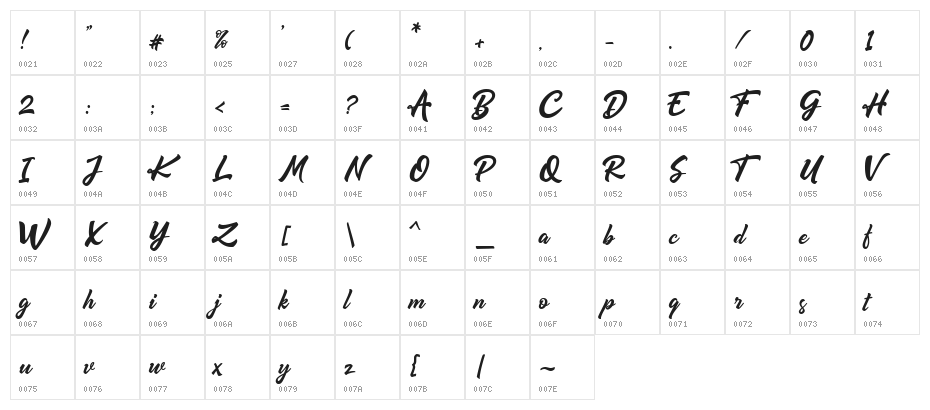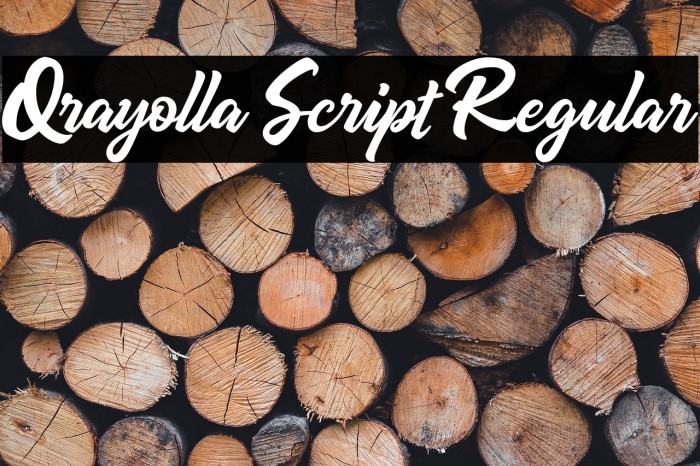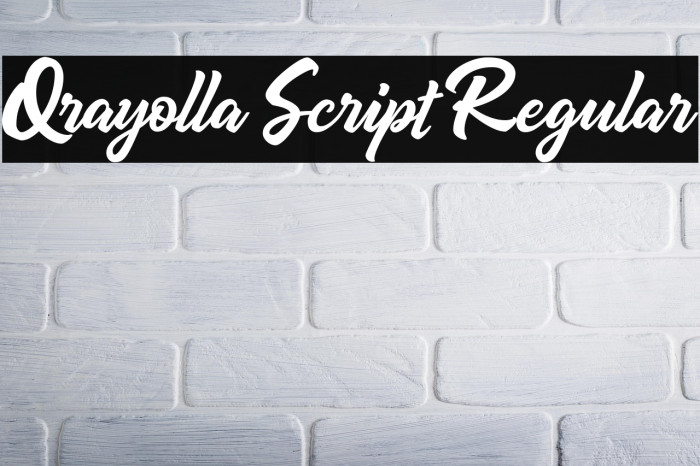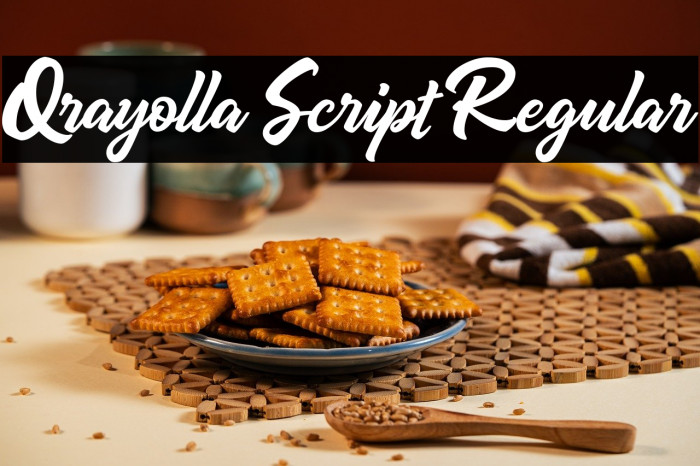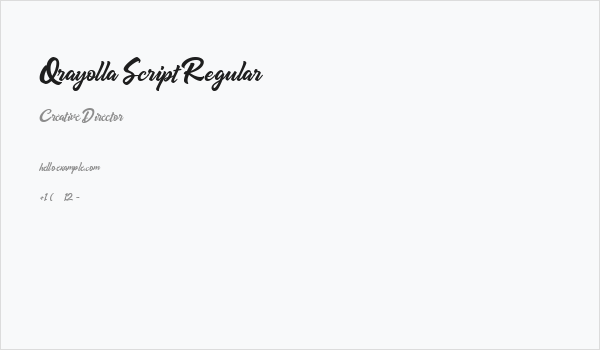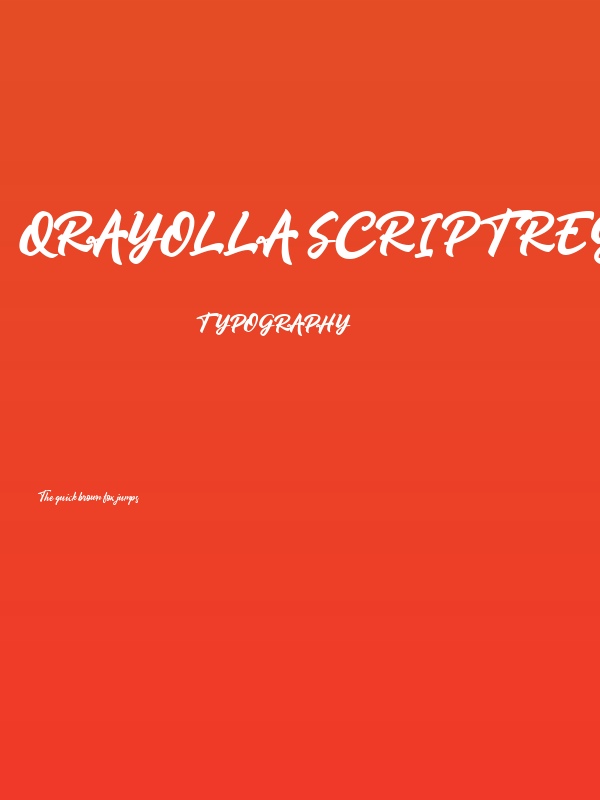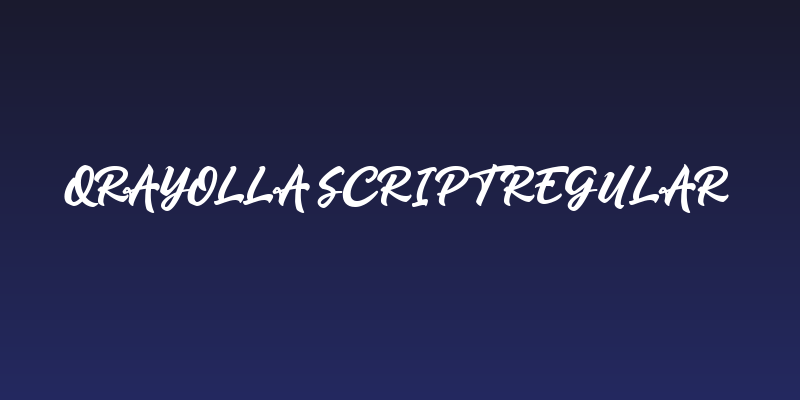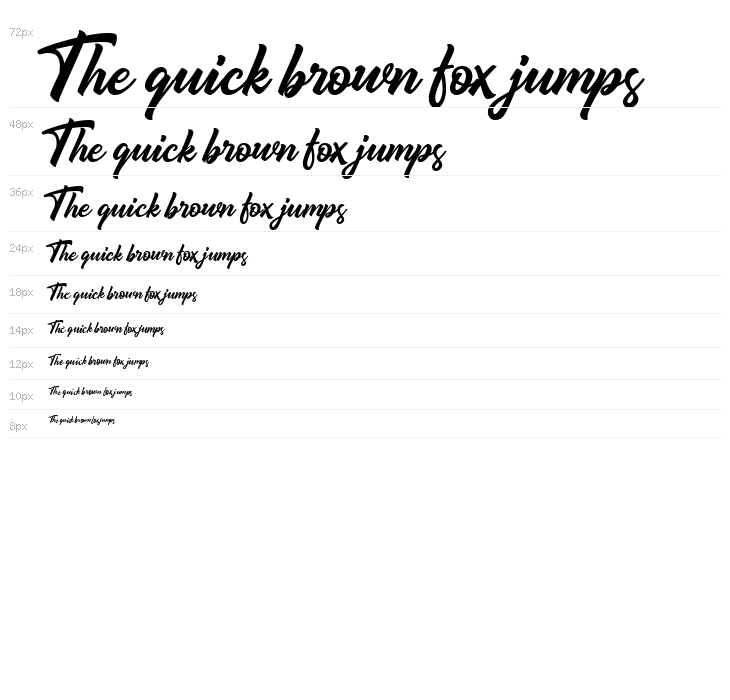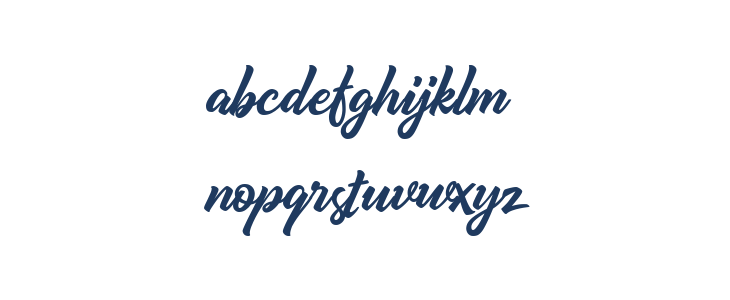
Qrayolla Script Regular Font
Qrayolla Script Regular Description
This script font exudes elegance and fluidity, characterized by its smooth, flowing curves and connected letterforms. The uppercase letters are bold and dramatic, with distinctive flourishes that add a touch of sophistication. The lowercase letters maintain a consistent flow, enhancing readability while preserving the font's artistic flair. The numerals are styled to match the overall aesthetic, ensuring a cohesive look across all characters. Special characters are thoughtfully designed, complementing the font's graceful style. This font is ideal for projects that require a personal, handwritten touch, such as invitations, greeting cards, and branding materials.